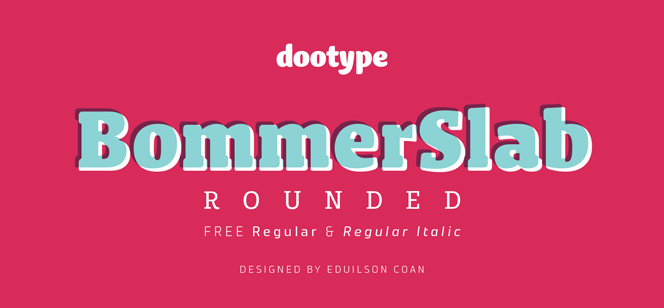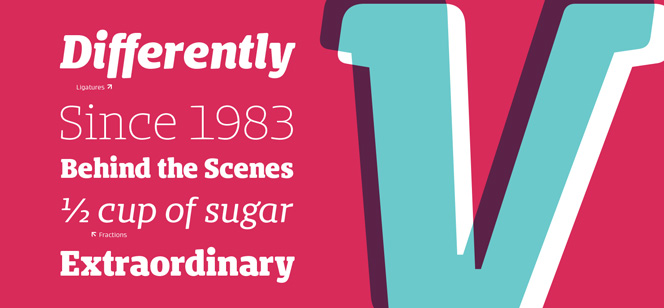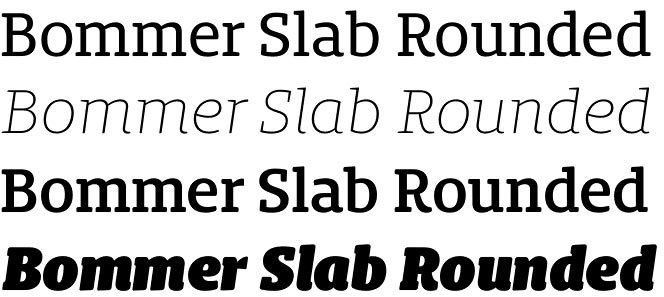
Bommer Slab Rounded
Bommer Slab Rounded font is the second family member of the second successful project by the Brazilian type designer Eduilson Wessler Coan (dooType foundry) – the Bommer Project. The first one – the awarded Encorpada project already enjoyed its new addition Encorpada Essential typeface. Bommer Slab Rounded type family features the same key characteristics as its older Bommer Slab sister: strong visual presence, headline sizes optimization, excellent legibility in small text sizes, and great versatility. Its rounded terminals and softened wedge-shaped serifs give the text a graceful and personal look in the lighter weights, and warmth in the heavier ones.
Bommer Slab Rounded font family comes with character set of 451 glyphs in 14 variations: seven weights (from Thin to Black) and their Italic matches. Two of them – Regular and Regular Italic are FREE fonts. Bommer Slab Rounded family offers a plenty of OpenType features as All Caps, Case Sensitive, Superscript, Subscript, Numerator, Denominator, Ordinal, Fractions, and Ligatures.
Eduilson Wessler Coan is a Brazilian type designer, founder of the dooType foundry. His latest projects were awarded with a number of prizes at the 2014 Tipos Latinos Biennale: Bommer Slab received a “Certificate of Excellence”; Encorpada Classic font and Encorpada Pro font were among the selected typefaces.